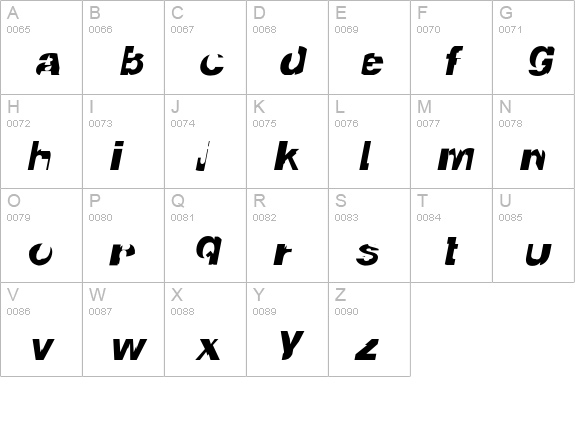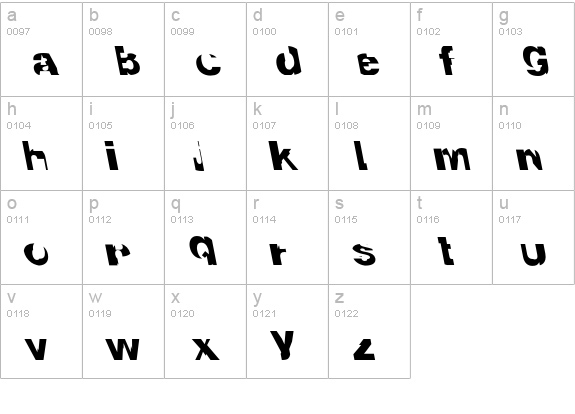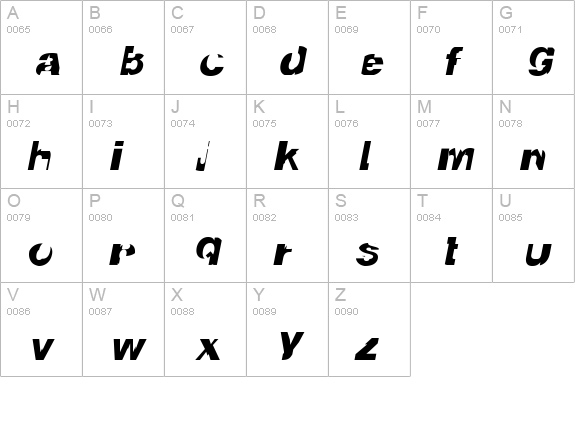
InternationalDisgrace-Obleek Font Details
Introducing InternationalDisgrace-Obleek font, a captivating and distinctive typeface that exudes a sense of boldness and rebellion. This font is truly one-of-a-kind, designed to make a statement and leave a lasting impression. InternationalDisgrace-Obleek font boasts an intricate and edgy design, with sharp angles and unexpected twists that add an element of surprise to every character. Its unique combination of elegance and grit makes it the perfect choice for projects that require a touch of rebellion and a hint of sophistication. But what sets InternationalDisgrace-Obleek font apart from other fonts on the market is that it is freely available to download at FontsMarket.com. Yes, that's right, this exceptional font can be yours without any cost. Now, you can unleash your creativity and make a powerful impact without breaking the bank. Whether you're designing a poster, creating a logo, or crafting a headline, InternationalDisgrace-Obleek font will elevate your work to new heights. Its versatility allows it to shine in both digital and print mediums, ensuring that your message will be effectively communicated across various platforms. So don't miss out on the opportunity to own this extraordinary font. Visit FontsMarket.com today and download InternationalDisgrace-Obleek font for free. Unleash your imagination and let this font be the catalyst for your next remarkable design.